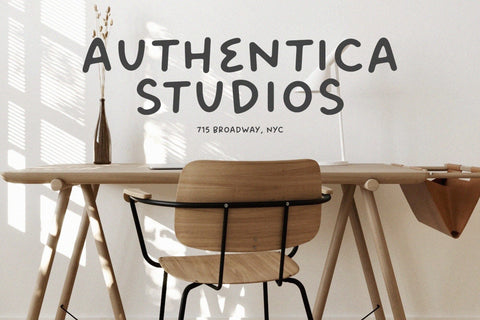
Bread Forest Handwritten fonts
Introducing by Timur type
Proudly Present, Bread Forest
Mighty Beast is a Handwritten Font, which was created with great care and specially created for you .
Mighty Beast is best for:
- logos, branding, & Signatures.
- Flyers, Album cover, Magazine, & Advertisements.
- Website design , design blogs, & fashion.
- Quote graphics for social media.
- and also it works great for other projects.
- Character Set
- Numerals and Punctuation (OpenType Standard)
- Accents (Multilingual characters)
-Ligature